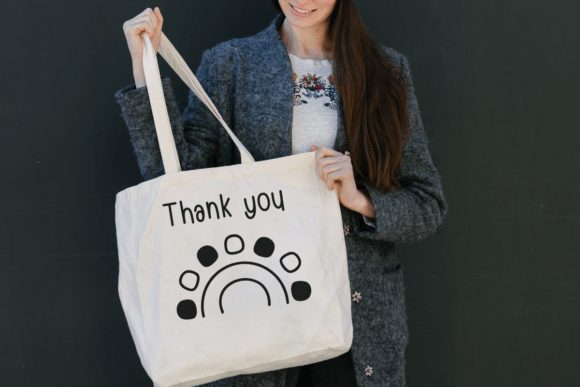
Sun Tattoo is a stylish dingbat font featuring a collection of hand-drawn sun designs, perfect for tattoo designs, boho graphics, summer branding, and decorative artwork. Whether you’re working on spiritual illustrations or aesthetic patterns, this font adds a radiant touch to your creative projects.
Sun Tattoo Font